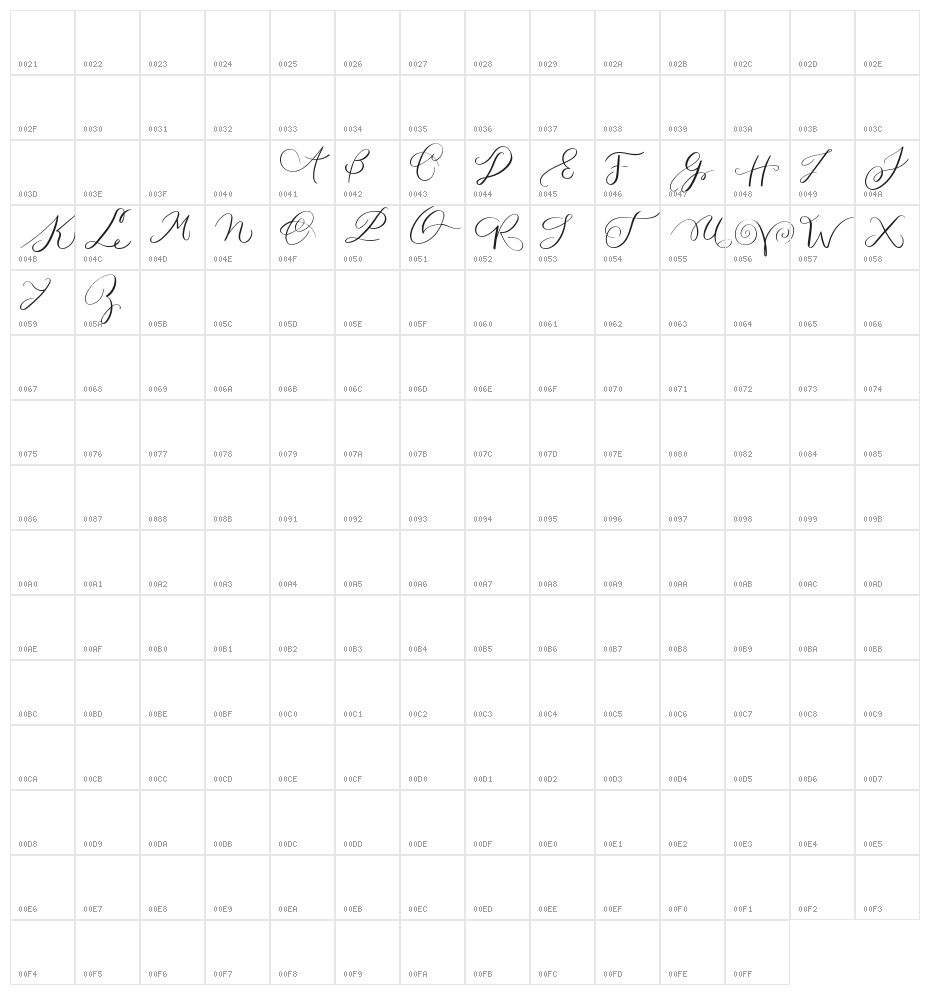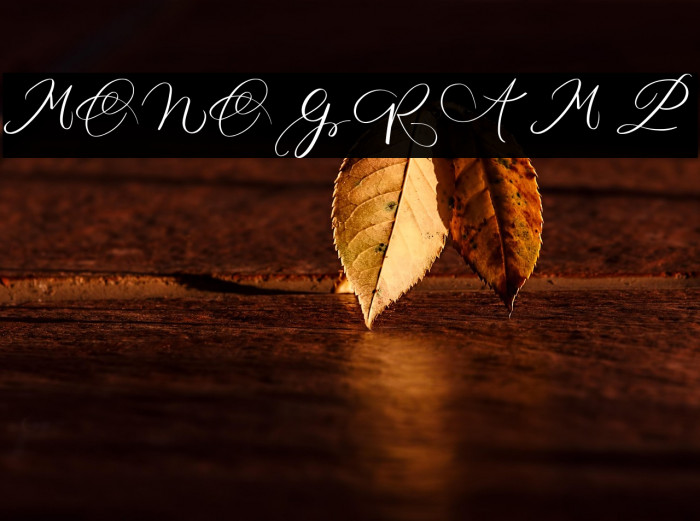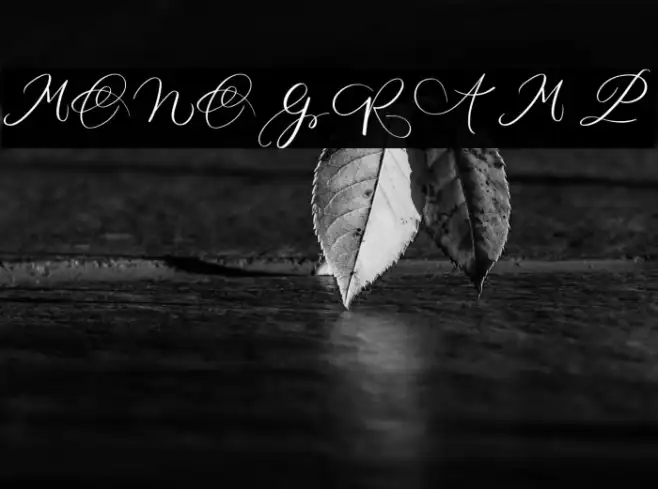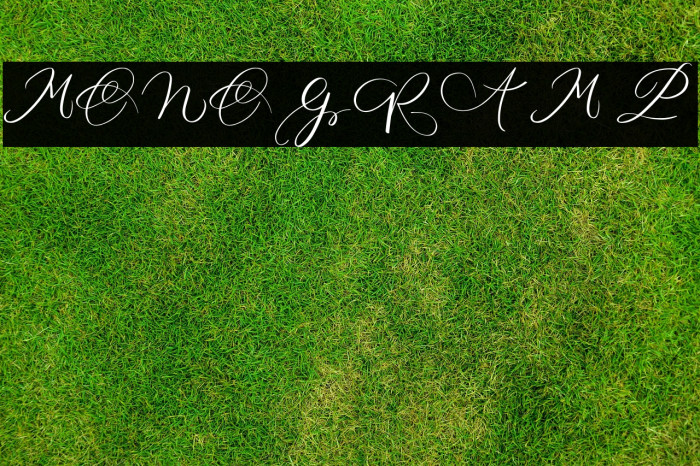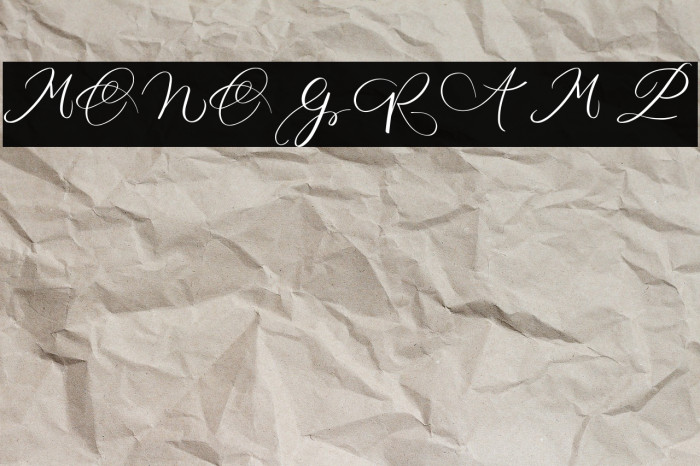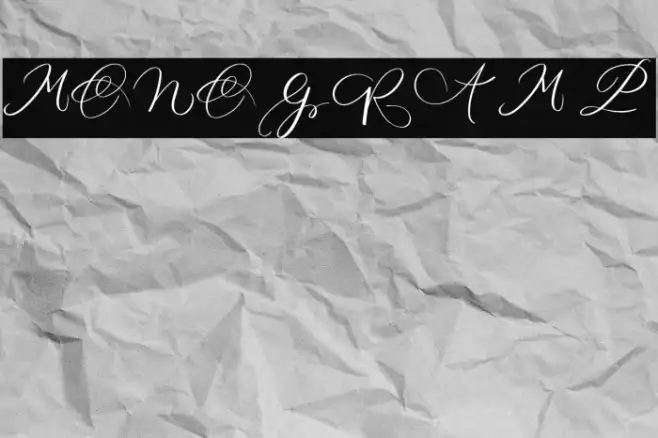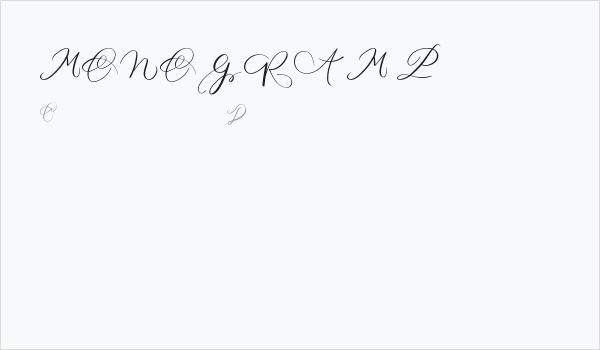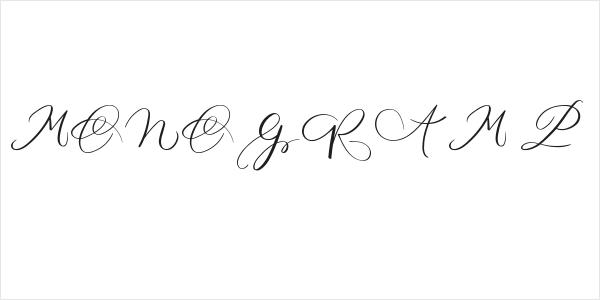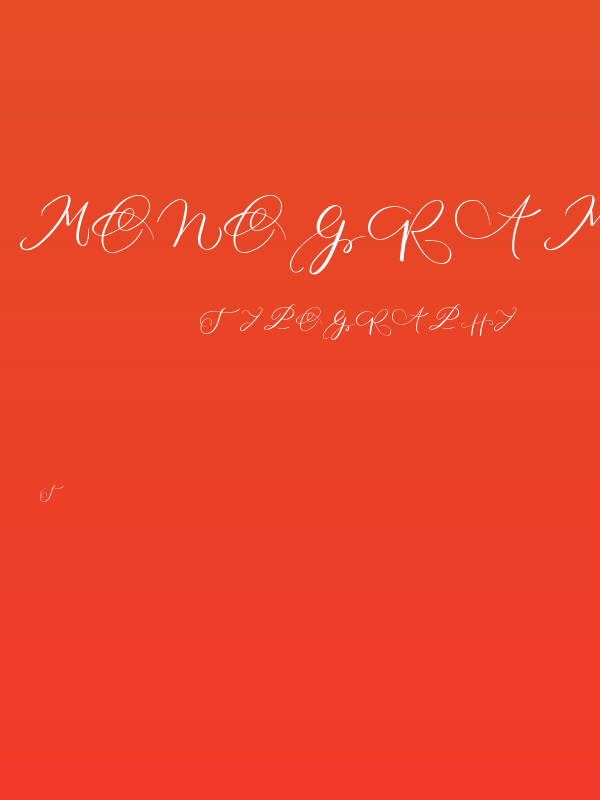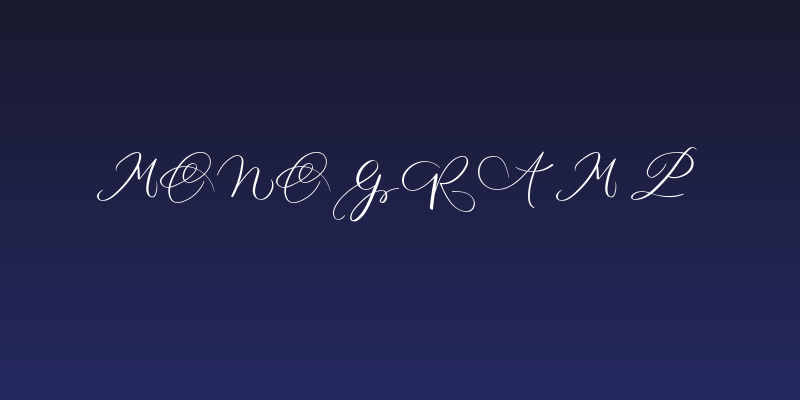
MONOGRAM P Font
MONOGRAM P Description
This elegant script font features intricate, flowing lines and a sophisticated style. Each letter is adorned with delicate swirls and flourishes, creating a sense of movement and grace. The uppercase letters are particularly ornate, with loops and curves that add a decorative touch. The font maintains a consistent stroke width, giving it a balanced and harmonious appearance. Its refined and artistic design makes it ideal for formal invitations, branding, and any project that requires a touch of elegance and sophistication.